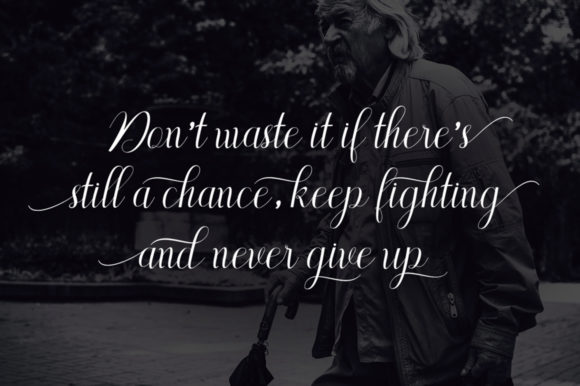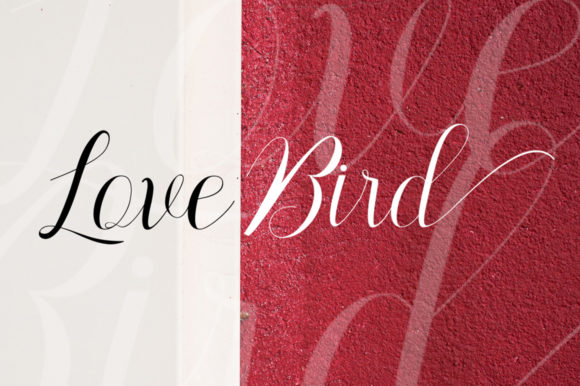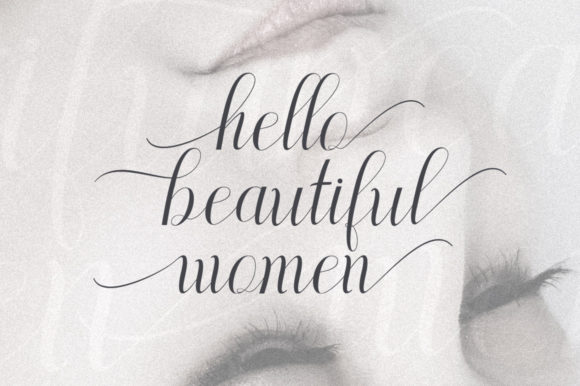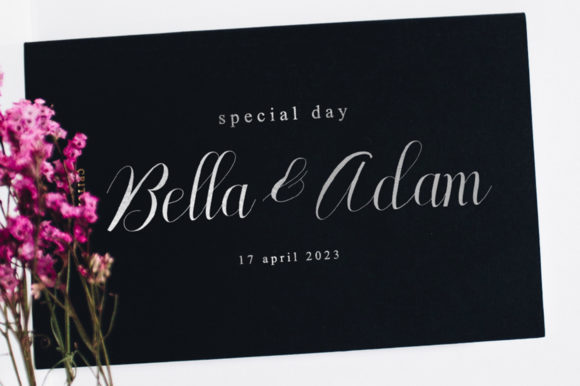
HomeScript FontsMilsey Font Script Fonts Milsey Font FacebookXPinterestWhatsApp Milsey Font Poster 2 Milsey Font Poster 3 Milsey Font Poster 4 Milsey Font Poster 5 About Milsey Font Milsey is a stunning and elegant handwritten font with a sophisticated feel. It will elevate any design idea! DOWNLOAD ON CREATIVE FABRICAThis font is sold and delivered by Creative Fabrica. Font Canyon may earn a commission if you buy through this link. People also explored Hello Antiques Font Love Ya Honey Wellbotth Font Monogram Floral Love Font Mock-Up Farmhouse Sign Muffin Jokes Font Retro Young Font Lustra Silloamstaf Font 349 0 TagsMilsey Font Previous articleFianna FontNext articleMafelo Font LEAVE A REPLY Cancel reply Comment: Please enter your comment! Name:* Please enter your name here Email:* You have entered an incorrect email address! Please enter your email address here Website: Save my name, email, and website in this browser for the next time I comment. Personal Use Free Miracles Personal Use Free Read more about this font Baby Cute Personal Use Free Read more about this font Bethania Personal Use Free Read more about this font Trio Personal Use Free Read more about this font BLOG Exploring Font Trends Shaping Communication in the Digital Era Fonts, like all design elements, are subject to trends. They play a crucial role in communicating a brand's personality,... The 10 Best Handwriting Fonts to Add Personality to Your Designs Best Fonts for T-Shirt Design – Top 2025 Picks 5 Fonts That Will Dominate Design Trends in 2026